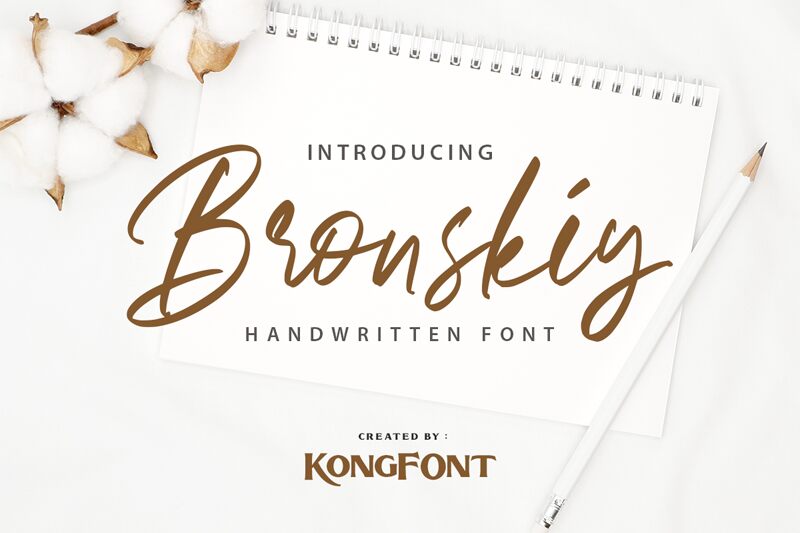
Bronskiy
Bronskiy, a remarkable creation by Kong Font, is a captivating handwritten font that exudes elegance and charm. With its semi-light weight, this font showcases graceful strokes and intricate details. Its unique style emulates the beauty of hand-drawn lettering, making it perfect for projects that require a personal touch.
From wedding invitations to artisanal branding, Bronskiy adds an air of sophistication to any design. Its versatility allows it to effortlessly blend with both contemporary and vintage themes.